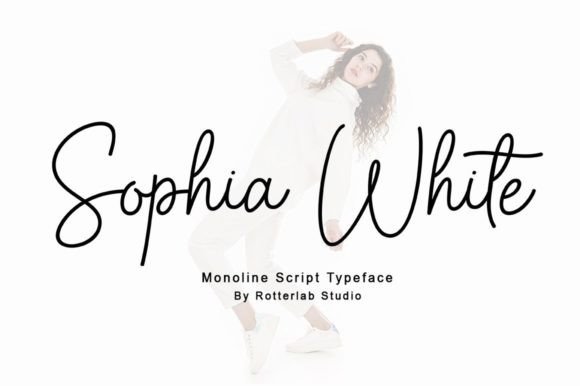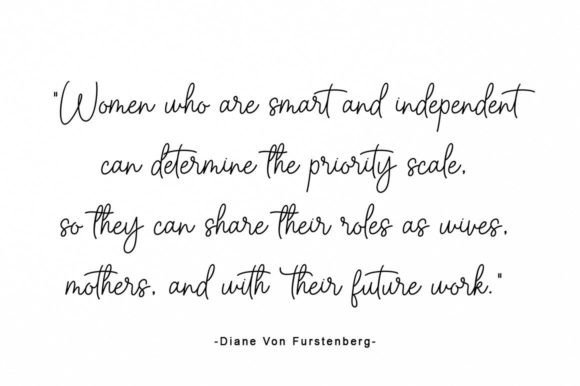
About Sophia White Font
“Sophia White” presents itself as a modern monoline script, tailored for a variety of design applications such as wedding stationery, logo design, watermarks, brand design, websites, social media, marketing, and more. With its contemporary appeal and versatile features, this font caters to a wide range of creative needs.
The font’s monoline script design signifies a sleek and uniform stroke thickness, contributing to a modern and clean aesthetic. This characteristic makes “Sophia White” well-suited for projects that demand a contemporary and sophisticated look, ranging from elegant wedding invitations to professional logo designs.
Designed with versatility in mind, “Sophia White” proves to be a valuable asset for diverse creative endeavors. Whether you’re enhancing your brand’s visual identity, creating a stylish watermark for your photography, or crafting engaging social media posts, the font provides a sleek and seamless solution.
One noteworthy feature of “Sophia White” is its PUA encoding, which stands for Private Use Area. This encoding allows easy access to all the glyphs and swashes that the font offers. This means you have the flexibility to incorporate a variety of unique characters and decorative elements into your designs effortlessly.
The font’s modern monoline script design, coupled with its PUA encoding, enhances the accessibility and creative potential of “Sophia White.” It opens up a realm of possibilities for designers, providing the freedom to explore different stylistic choices and create visually appealing and customized designs that suit a diverse array of projects.